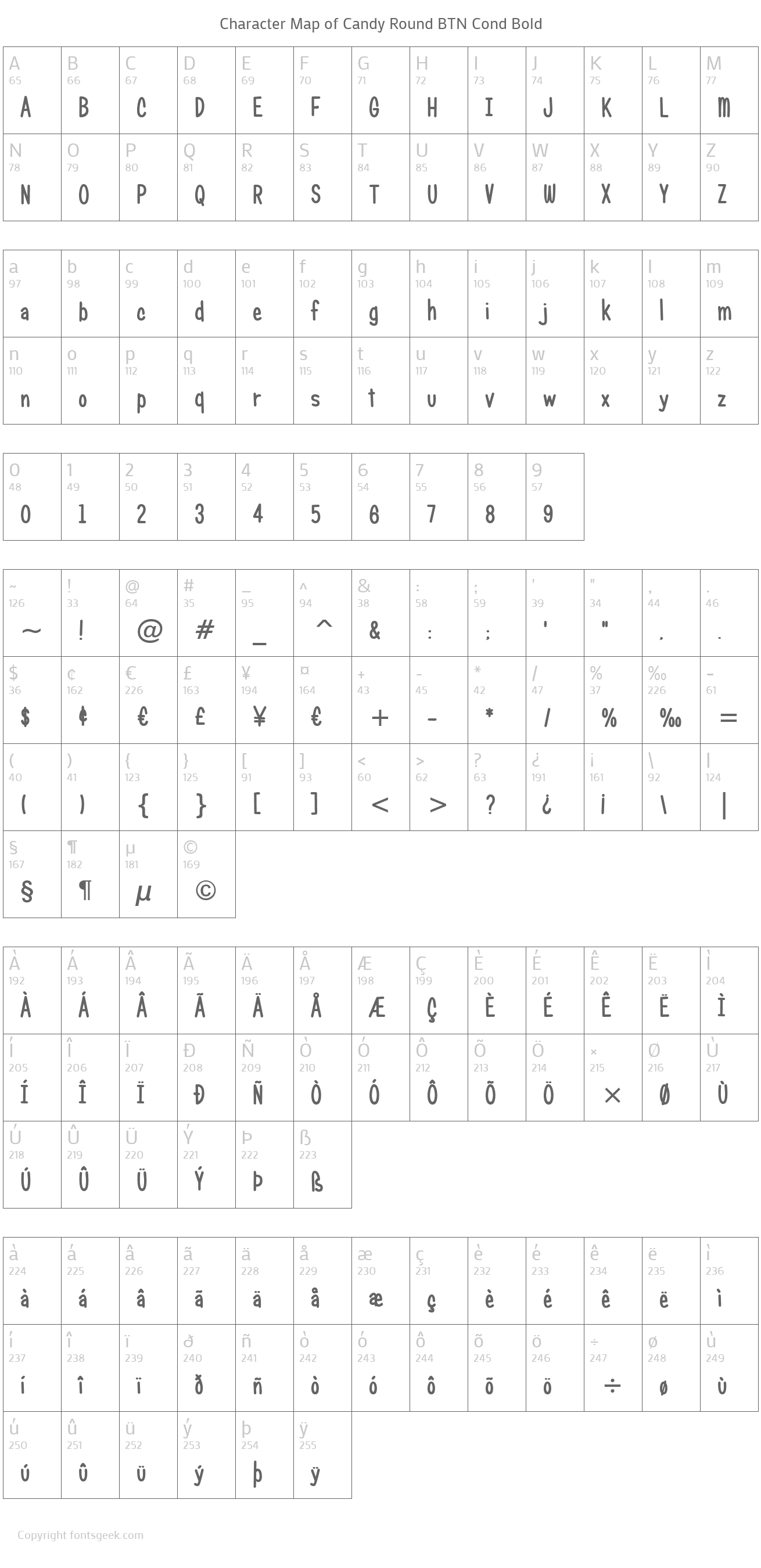
Are you looking for a font that is stylish yet legible? If yes, then CandyRound Bold Font is the right choice for you! This font is a unique combination of bold and classic typefaces. It is a perfect choice for any graphic design project. It is perfect for logos, posters, websites, and other kinds of designs.
CandyRound Bold Font is a modern sans serif font with rounded edges. It is a great choice for creating logos and other graphics that need to stand out. It features a slightly condensed letterforms with a bold weight. The font also includes a variety of characters, including uppercase and lowercase letters, numbers, and punctuation. This font is very versatile and can be used for a variety of design projects.
CandyRound Bold Font is a great choice for any design project. It has a unique style that is bold and classic, making it very versatile. The font is easy to read and can be used for both digital and print designs. It has a wide range of characters, including uppercase and lowercase letters, numbers, and punctuation. It is perfect for creating logos, posters, websites, and other designs.
Once you have downloaded the font, you can start using it in any of your design projects. CandyRound Bold Font is a great choice for logos, posters, websites, and any other kind of design. It is a modern font with rounded edges and a bold weight, making it perfect for any kind of project. Give it a try today and see how it can help boost your design projects!